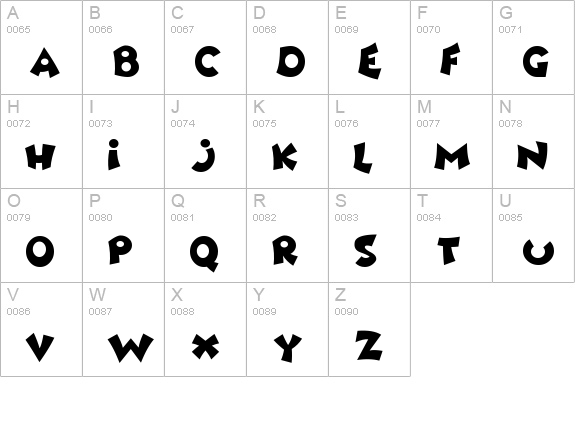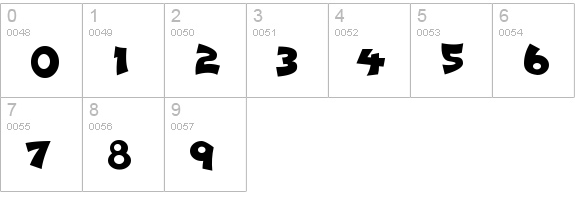
Awesome is a free for personal use font in the Fancy > Comic category, designed by Darrell Flood. It has been downloaded 154 times and is available for Windows, Mac and Linux.
Introducing the spectacular Awesome font, a versatile and modern typeface that is sure to elevate your design projects to new heights. This font exudes style, sophistication, and creativity with its sleek lines and unique character shapes. Whether you're designing a logo, creating marketing materials, or crafting a website, Awesome font is the perfect choice to make your content stand out.